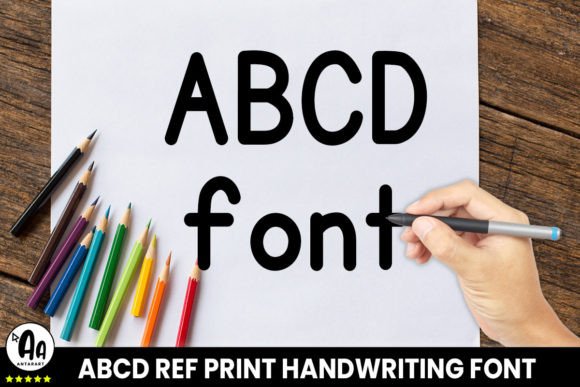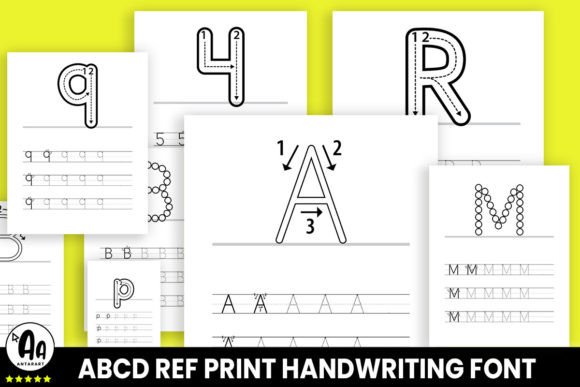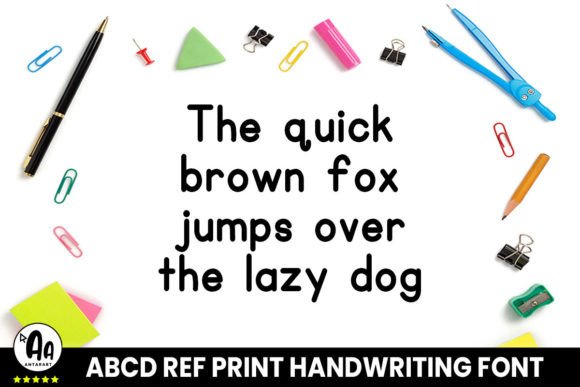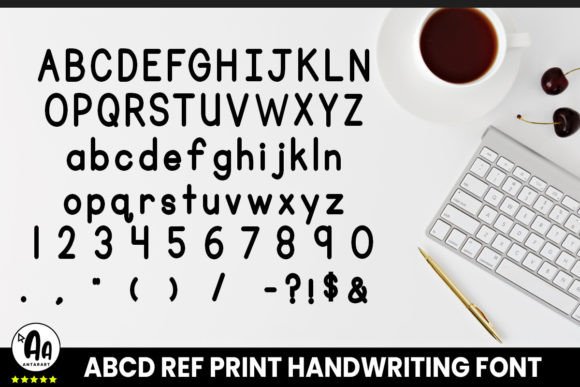
The Power of ABCD Ref Bold: Unlocking Creative Learning Resources
As a designer, I’ve had my fair share of moments where I struggled to find the perfect font for a project. But one font that has stuck with me is the ABCD Ref Bold font, part of the ABCD Ref font family. This practical display font has been a game-changer for creating engaging and interactive learning resources, especially for those who want to learn or teach the print alphabet in a fun way.
A Moment of Inspiration
I recall working on a project for a client who needed a custom worksheet for teaching kids the alphabet. The client wanted a font that was not only visually appealing but also aligned with the D’Nealian Method US school. After hours of searching, I stumbled upon the ABCD Ref Bold font, and it was love at first sight! ✨ The font’s unique style and versatility made it the perfect fit for the project.
- ✅ Unique Style: The ABCD Ref Bold font has a distinctive style that sets it apart from other fonts. Its bold and playful design makes it perfect for creating eye-catching worksheets and learning materials.
- ✅ Versatility: This font is incredibly versatile and can be used for a wide range of projects, from educational resources to craft projects.
- ✅ Easy to Read: Despite its bold design, the font is surprisingly easy to read, making it perfect for creating materials for young learners.
While the ABCD Ref Bold font is an excellent choice for many projects, there are a few quirks to be aware of: 🤔
- ⚠️ Limited Character Set: The font may not have an extensive character set, which can limit its use for certain projects.
- ⚠️ Not Suitable for Body Text: Due to its bold design, the ABCD Ref Bold font may not be the best choice for body text, especially for longer paragraphs.
The ABCD Ref Bold font was inspired by the D’Nealian Method US school, which emphasizes the importance of handwriting and letter formation in the learning process. The font’s designer aimed to create a font that was not only visually appealing but also practical and easy to read. The result is a font that has become a staple in the world of educational design.
Q: What is the ABCD Ref Bold font?
A: The ABCD Ref Bold font is a practical display font based on the D’Nealian Method US school, designed for creating engaging and interactive learning resources.
Q: Can I use the ABCD Ref Bold font for creating worksheets?
A: Absolutely! The ABCD Ref Bold font is perfect for creating worksheets, especially for teaching kids the alphabet.